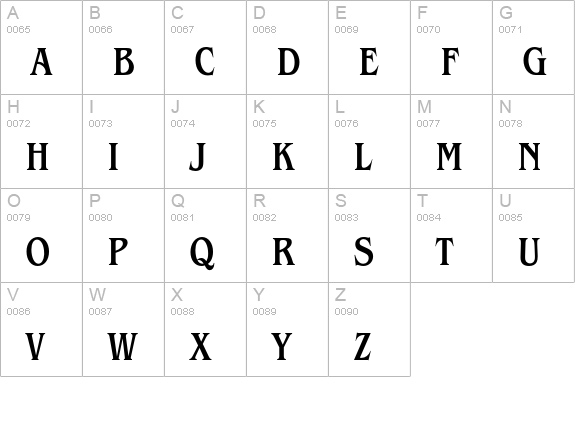
BenguiatEF-MediumCondensed font is a stylish and versatile typeface that exudes elegance and sophistication. With its sleek condensed design, this font is perfect for creating eye-catching headlines, signage, and branding materials. The balanced letterforms and distinctive serifs give BenguiatEF-MediumCondensed a timeless appeal that is sure to make your designs stand out. What makes BenguiatEF-MediumCondensed even more appealing is that it is available for free download at FontsMarket.com. This means that you can easily access this high-quality font and use it in your projects without any cost. Whether you're a professional designer or a hobbyist, BenguiatEF-MediumCondensed is a fantastic choice for adding a touch of elegance to your work. Download it now and elevate your designs with this exquisite typeface.